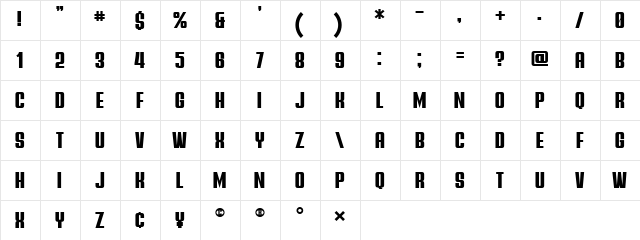
Augsburg Condensed
Design Context for Augsburg Typeface
Augsburg offers clean, dependable letterforms without strong stylistic allegiance, making it a practical choice for designers who need flexibility. Its narrow stance lets it pack a punch even in space-constrained designs.